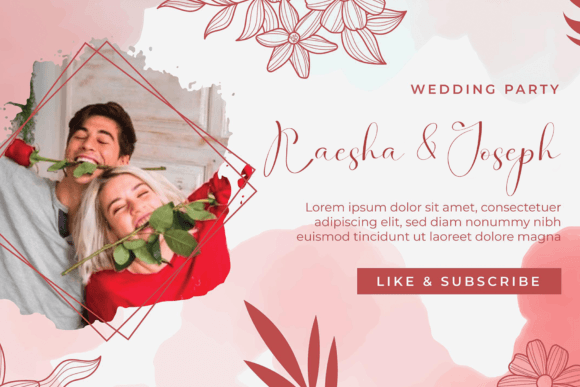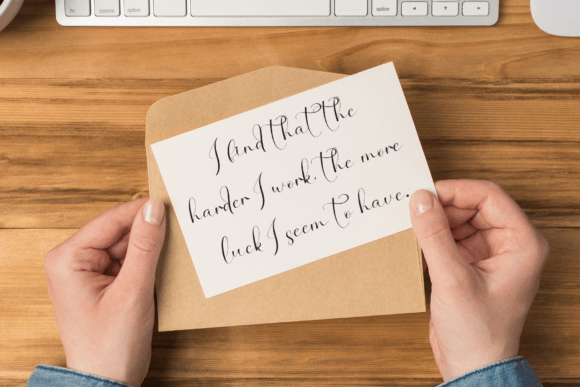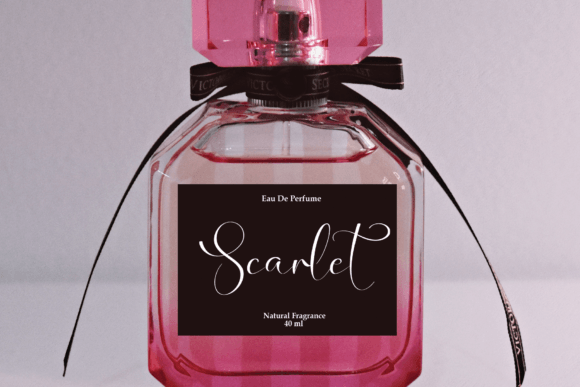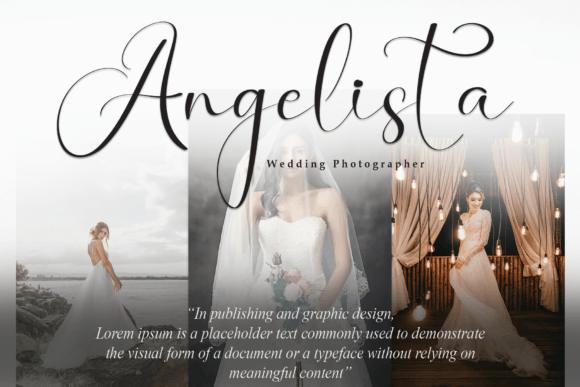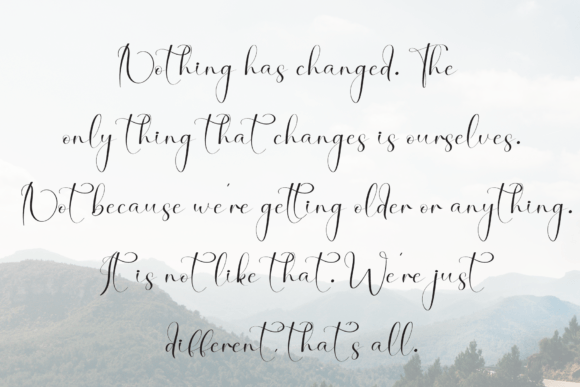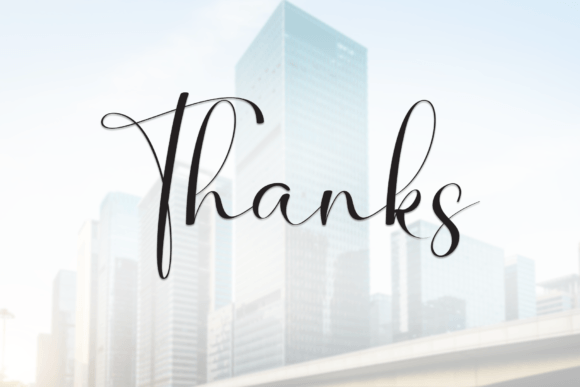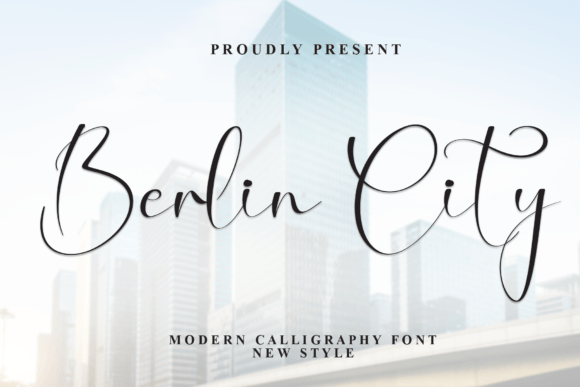
The Elegance of Berlin City Font: A Designer’s Delight
I’ll never forget the time I was working on a wedding invitation project, and my client asked for a font that was elegant, stylish, and conveyed a sense of sophistication. I scoured the internet, tried out countless fonts, but nothing seemed quite right. That was until I stumbled upon Berlin City Font. ✨ It was love at first sight! The fluid strokes, the beautiful connections, and the overall aesthetic just screamed elegance. In this article, I’ll share my experience with Berlin City Font, its features, and how to make the most of it in your designs.
A Honest Review of Berlin City Font
- ✨ Elegant and stylish script font perfect for wedding invitations, thank you cards, and greeting cards
- 💫 Beautifully crafted with attention to detail, making it perfect for logos and business cards
- 🎨 Versatile and works well with a variety of design styles
While Berlin City Font is an excellent choice for many designs, there are a few things to keep in mind: 🤔
- ⚠️ Some characters may not work well in all contexts, so it’s essential to test the font thoroughly
- ⚠️ May not be the best choice for body text, as it’s a script font and can be challenging to read in large blocks
One of the standout features of Berlin City Font is its OpenType features and glyphs. These allow you to customize the font to suit your design needs:
- Stylistic alternates: swap out characters for alternative designs
- Ligatures: combine characters for a more elegant look
- Glyphs: add special characters, such as ornaments and swashes, to enhance your design
The Backstory of Berlin City Font
Berlin City Font was designed with elegance and sophistication in mind. The creator, a talented typographer, aimed to craft a font that would evoke the feeling of luxury and refinement. The result is a beautiful, highly legible script font that’s perfect for a range of design applications.
Q: What is Berlin City Font?
A: Berlin City Font is a stylish and elegant script font, perfect for wedding invitations, thank you cards, quotes, greeting cards, logos, business cards, and more.
Q: Is Berlin City Font easy to read?
A: Yes, Berlin City Font is highly legible, even at smaller font sizes. However, as with any script font, it’s best used sparingly and in context.